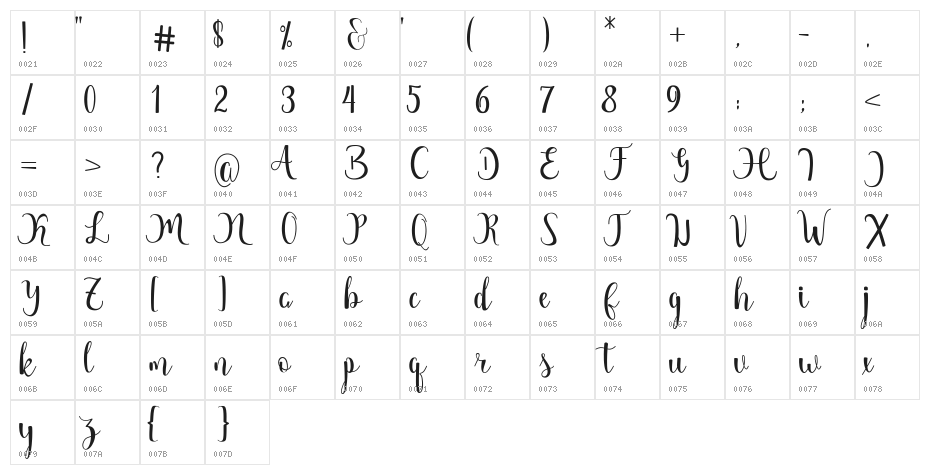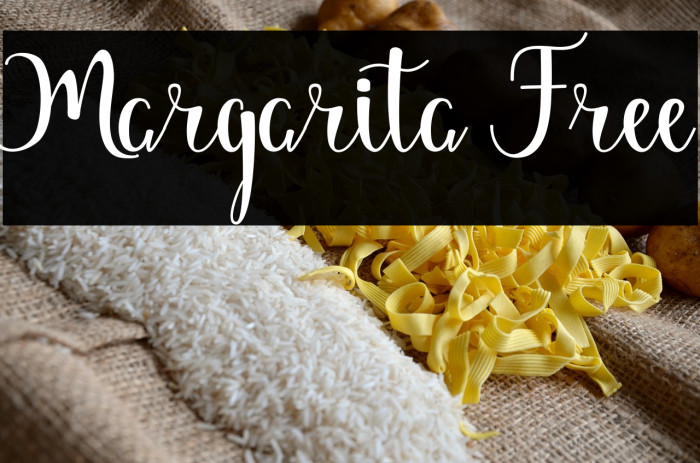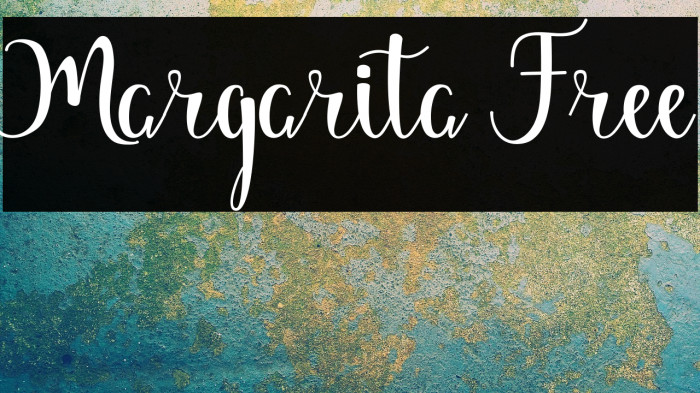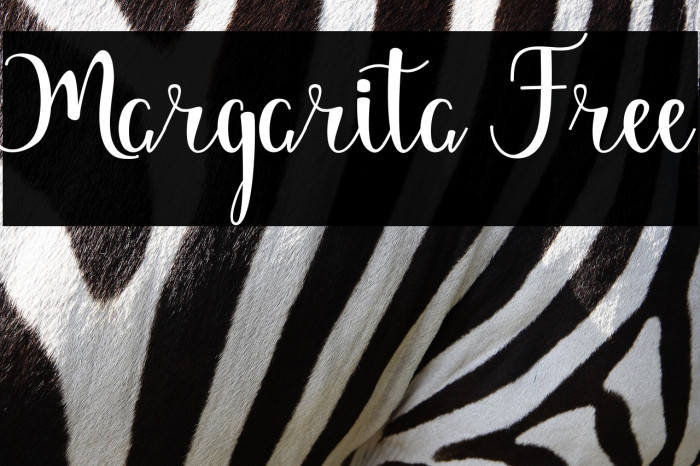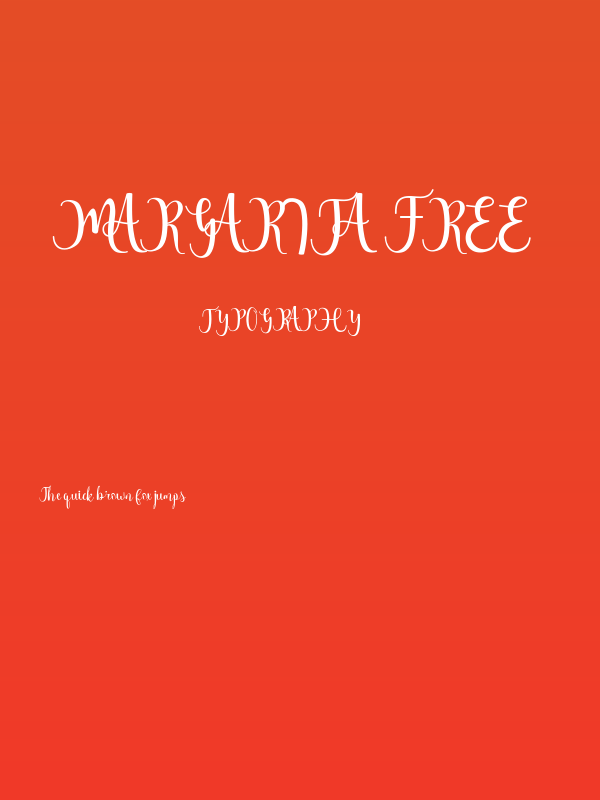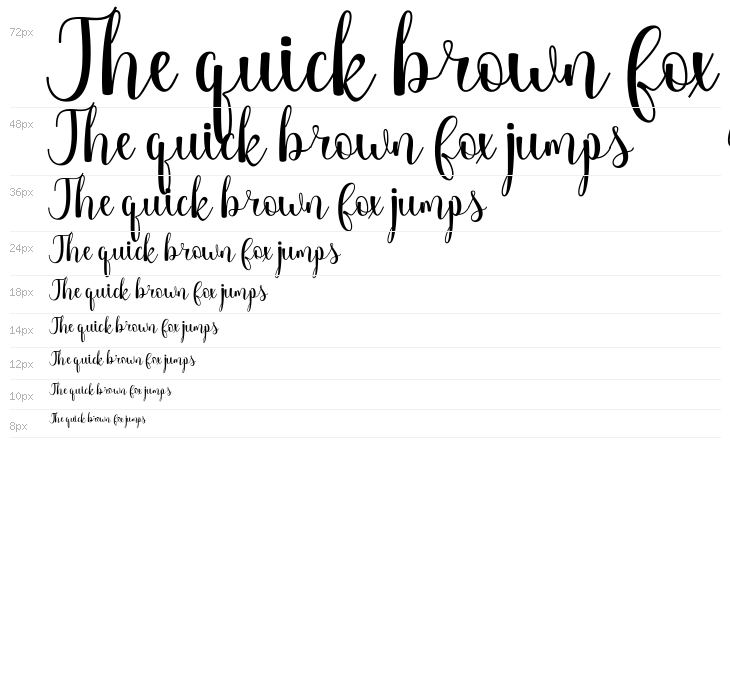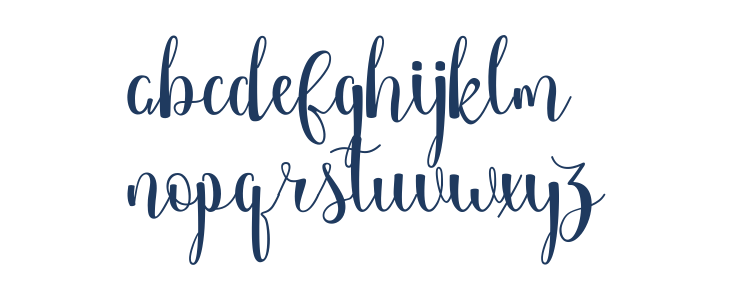
Margarita Free Font
Margarita Free Description
This font exudes a playful and artistic flair, characterized by its flowing, cursive style. The letters are connected in a fluid motion, giving it a handwritten appearance. The uppercase letters are elegantly looped and swirled, while the lowercase letters maintain a consistent, smooth flow. The numerals are distinct yet harmonize well with the overall script style. The special characters are creatively integrated, maintaining the whimsical essence of the font. Its bold strokes and varying line thicknesses add a dynamic contrast, making it visually appealing and suitable for creative projects.